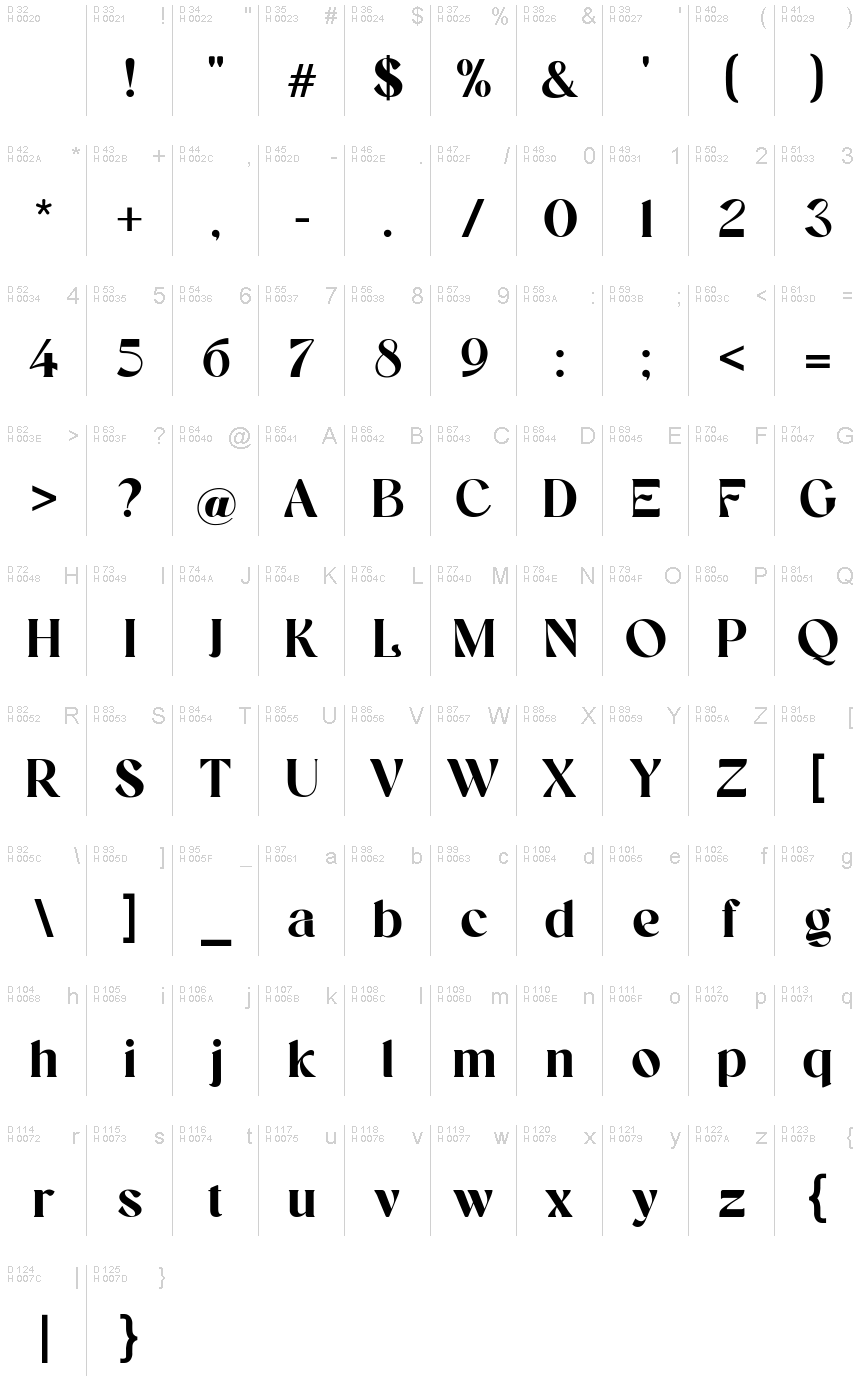
Marquisette
Marquisette, crafted by UI Creative, is a bold serif font that commands attention with its sophisticated elegance. Each character boasts strikingly defined serifs and a robust weight that conveys confidence and timelessness. The font's sharp edges and refined curves create a harmonious balance, making it visually captivating and highly legible.
Ideal for high-impact design projects, Marquisette shines in headlines, branding, editorial layouts, and luxury packaging. Its classic yet contemporary appeal ensures versatility across diverse applications while maintaining an air of distinction. Whether gracing the cover of a magazine or enhancing the identity of an upscale brand, Marquisette effortlessly elevates any visual experience with its bold presence and refined aesthetic.